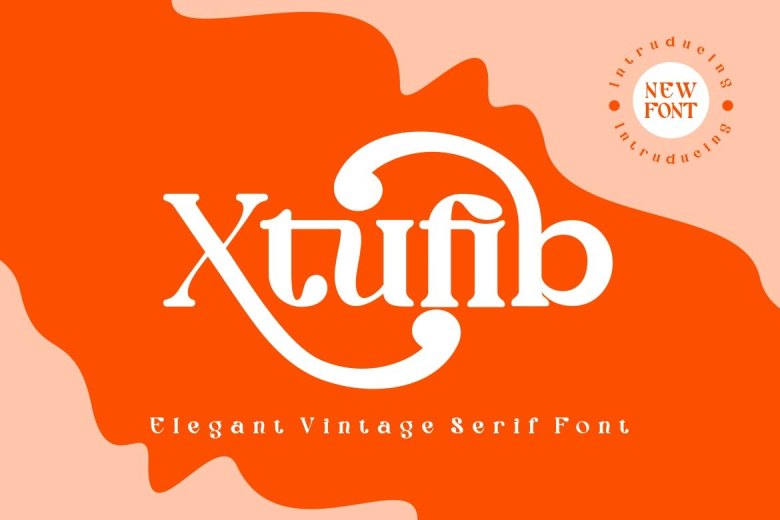
Xtufib Font
Xtufib An elegant vintage serif font is a modern and authentic font. This font is perfect for your professional needs and product branding. Applicable for all types of branding and many things beyond your imagination. For example: quotes, logos, blog headers, posters, ribbons, letters, invitations, stationery, web design, app design, among many others. It is adaptable to various projects and media.
Xtufib Serif Font